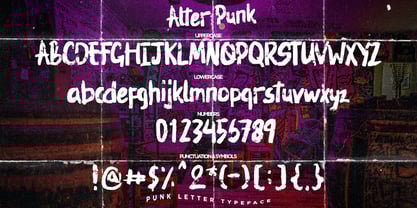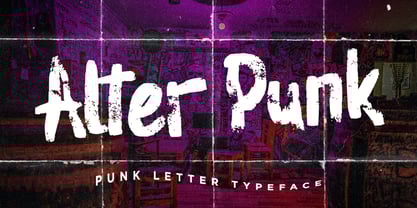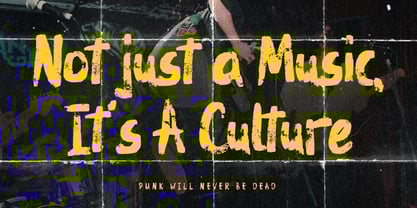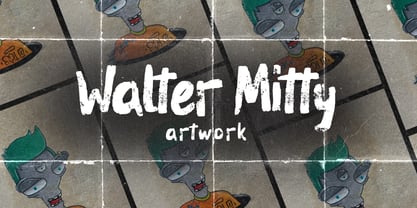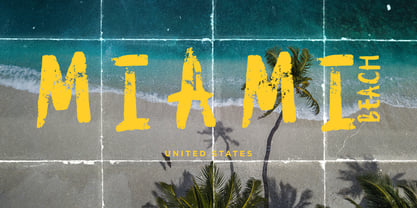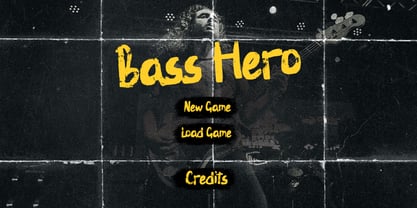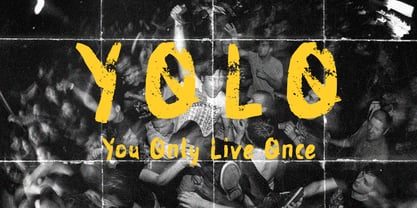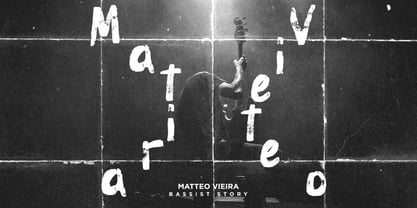
Alter Punk
Alter Punk – Punk Letter Typeface
🔥 Grunge Meets Elegance – A Typeface That Rebels With Style 🔥
Alter Punk is a fearless punk-style font that delivers a raw, authentic vibe with a bold voice. Handcrafted for maximum impact, this font fuses rough textures with rebellious attitude — perfect for creatives who want their logo designs, corporate visuals, or food branding to break all the rules while still keeping it classy.
From high-end modern packaging to vintage-inspired marketing, Alter Punk is a gritty yet elegant typeface that grabs attention and never lets go.
Perfect for:
• Punk & Rock Band Branding
• Corporate Logo Design
• Luxury Streetwear & Urban Fashion Labels
• Food & Beverage Packaging (think bold coffee labels, hot sauce jars, vegan snacks)
• Music Album Covers & Posters
• Zine Titles & Editorial Spreads
• Event Flyers, Merchandise, and more
What’s Inside:
• All Uppercase A–Z Letters
• Punctuation & Symbols
• Multilingual Support
• Grunge Texture Details
Key Features:
✔ Vintage soul with a modern twist
✔ Great for corporate identity and logo design
✔ Sharp enough for luxury branding, wild enough for punk packaging
✔ Unique textures that bring your food brand or editorial layouts to life
✔ Works flawlessly on both print and digital platforms